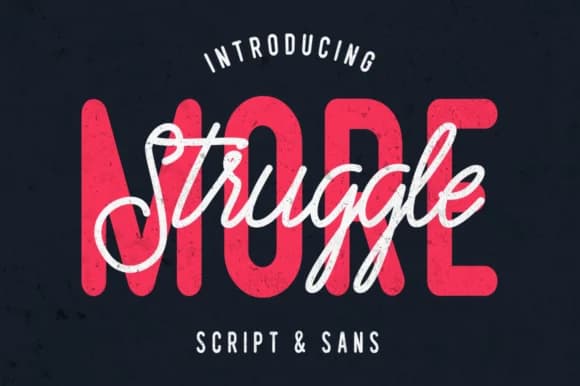
Struggle More Duo Font by LovePowerDesigns is a contemporary script-and-sans pairing that brings expressive handwritten character to polished, professional layouts. This dual-typeface package includes both a flowing, organic script version and a clean, complementary sans-serif, offering the flexibility you need whether you're crafting wedding invitation suites, designing Etsy product labels, creating custom boutique packaging for artisanal cosmetics and natural candles, or hand-lettering Instagram graphics that demand real personality and visual impact. The script's dynamic energy pairs beautifully with the sans-serif for clear hierarchy and readability across comprehensive branding projects.
Beyond the two typefaces themselves, the package includes bonus decorative quotes that add an extra creative dimension to your work and designs. This combination makes it equally suited for DIY craft signage, boutique small-business branding, personalized greeting card designs, and special-occasion stationery. The script handles display work with genuine flair and character, while the sans-serif keeps body text and supporting elements clear and legible. With both styles working in seamless harmony, you can build visually cohesive designs across multiple applications and marketing touchpoints without the need to purchase separate fonts for different contexts.
- Elegant, Flowing, Struggle More Script
Struggle More Duo Font is a script font that shines as a display or heading face. Pair it with a clean sans-serif or serif font for body text β the contrast creates a clear hierarchy while the two styles stay balanced and easy to read.